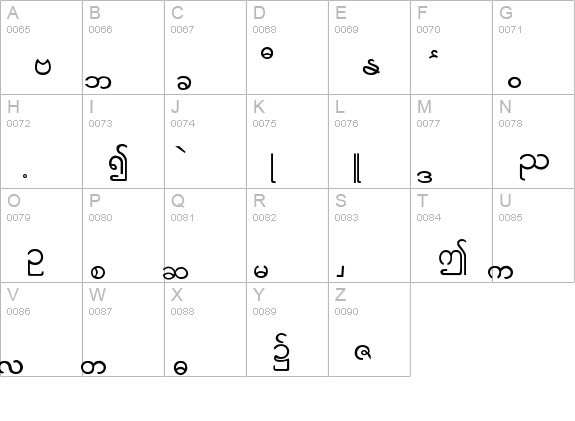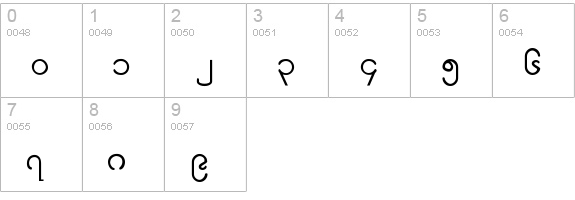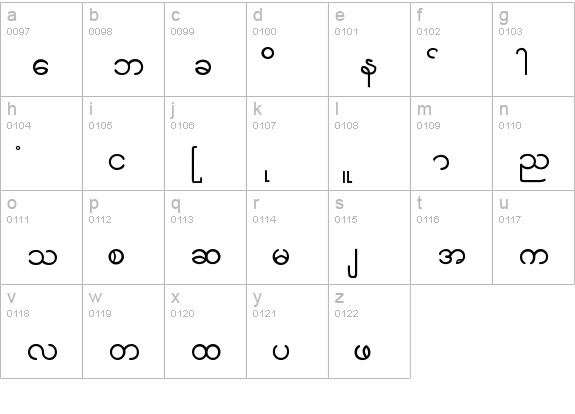
Suu Kyi Burma Font Details
Suu Kyi Burma font is a unique and elegant typeface that exudes sophistication and charm. Its intricate details and graceful curves make it ideal for a wide range of design projects, from branding to invitations. The font carries a sense of tradition and cultural richness, adding a touch of exotic flair to any work it is applied to. What makes Suu Kyi Burma font even more appealing is that it is available for free download at FontsMarket.com. This means that you can easily access this stunning font and incorporate it into your designs without any cost. Whether you are a professional designer or a hobbyist, Suu Kyi Burma font offers you a beautiful and versatile option to enhance your creative projects. Download it today and let its beauty shine in your work!